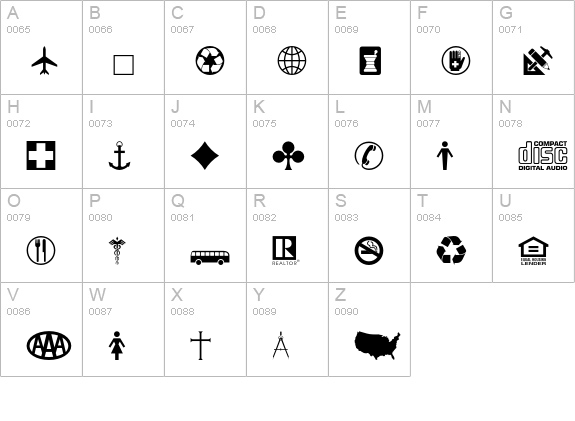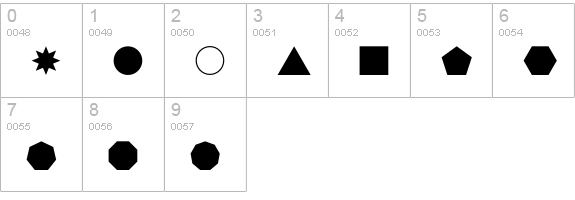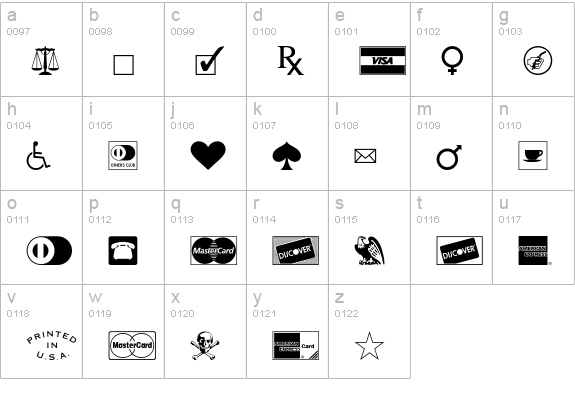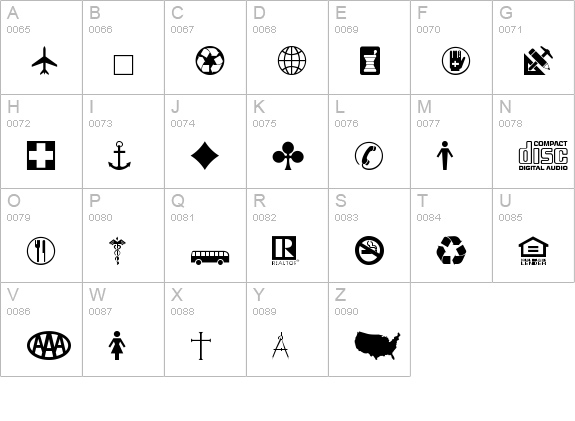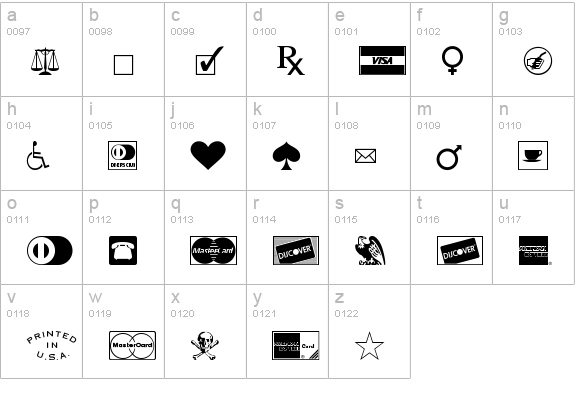
PictographOne Font Details
PictographOne font is a fantastic display typeface that will add a touch of creativity and charm to your design projects. With its unique and eye-catching pictographic style, this font is perfect for adding a playful and whimsical element to any design. Whether you're creating posters, logos, or social media graphics, PictographOne font will make your designs stand out from the crowd. One of the best things about PictographOne font is that it is available for free. Yes, you read that right! This incredible font can be downloaded freely at FontsMarket.com. It's a great opportunity to enhance your design toolkit without breaking the bank. With PictographOne font, you can now add a touch of fun and creativity to your projects without any cost. Featuring a wide range of pictographic symbols, PictographOne font offers endless possibilities for expressing your ideas visually. From cute animals to everyday objects, this font has it all. The intricate details and intricate designs of each symbol make it a joy to work with, allowing you to create stunning visuals that captivate your audience. PictographOne font is incredibly versatile, making it suitable for a variety of design projects. Whether you're designing a children's book, creating infographics, or adding a unique touch to your website, this font will help you bring your ideas to life. Its playful and friendly nature makes it particularly appealing to younger audiences, making it an excellent choice for educational materials and children's products. So why wait? Go ahead and download PictographOne font for free at FontsMarket.com today. Expand your design possibilities and add a touch of creativity to your projects with this amazing font. With its unique and captivating pictographic style, PictographOne font will surely make your designs pop and leave a lasting impression on your audience.